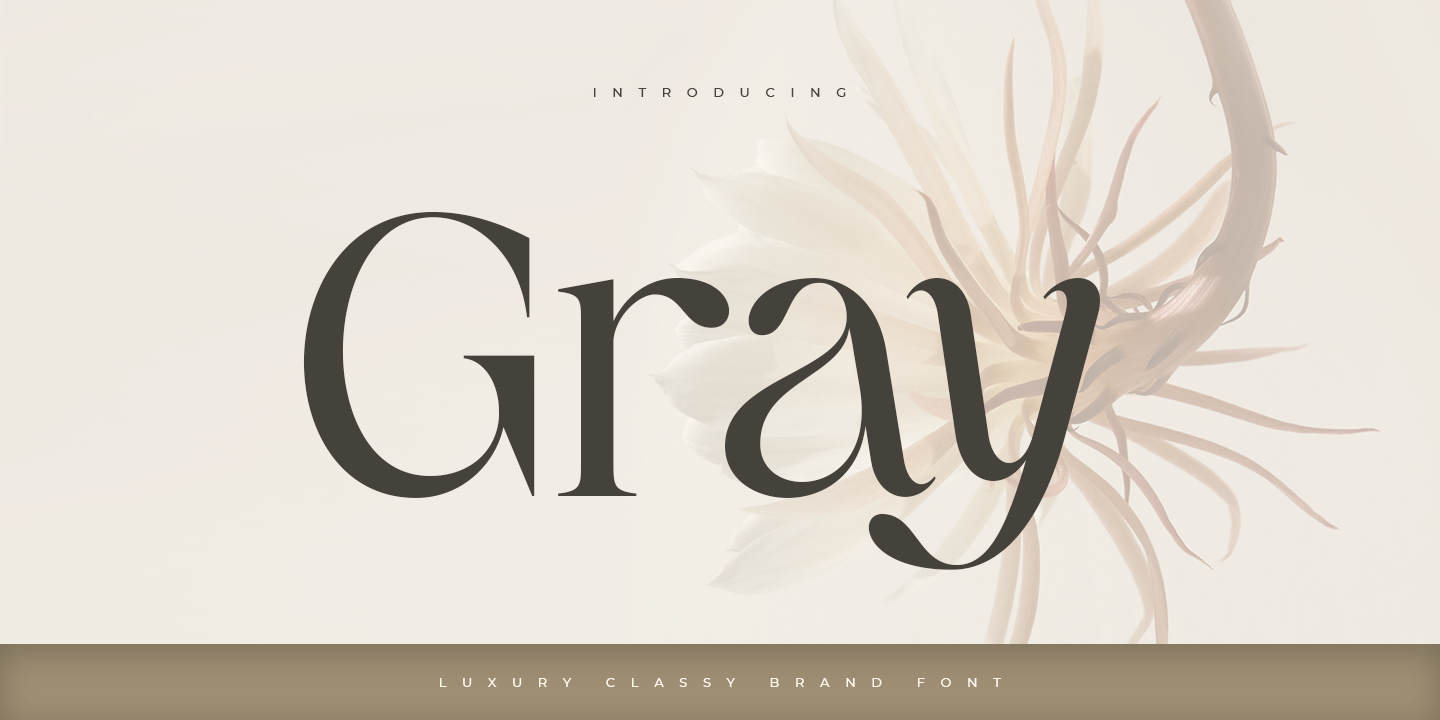
The Gray Font is an excellent choice for designs that demand a clean, modern, and highly versatile aesthetic, often with a subtle, neutral elegance. Imagine it providing crisp, understated text for sophisticated corporate branding, adding a refined and professional feel to high-tech product interfaces, or bringing a minimalist yet impactful vibe to editorial layouts in contemporary magazines. It's also perfectly suited for sleek mobile app design, comprehensive annual reports, and any project where you want to convey innovation, clarity, and timeless design without being overly flashy. With its balanced proportions and meticulously crafted forms, the Gray Font is ideal for projects that aim for visual polish and functional excellence.
What makes the Gray Font truly exciting is its remarkable ability to perform across a vast array of applications while maintaining a consistently high level of readability and aesthetic appeal. It's designed for supreme legibility even at small sizes and on diverse screens, making it a reliable workhorse for both print and digital media. This font strikes an optimal balance between being unobtrusive for body text and having enough character to make headlines pop with modern sophistication. It injects a sense of professionalism and cutting-edge design into your projects, making it a go-to choice for establishing a credible and contemporary brand presence. The Gray Font Free Download offers a fantastic opportunity to experience this typeface's versatile capabilities.
The Gray Font family is typically designed to offer a comprehensive range of weights and styles, maximizing its adaptability for diverse design requirements. While specific family members can vary, you can typically expect to find:
Gray Thin
Gray Light
Gray Regular
Gray Medium
Gray SemiBold
Gray Bold
Gray Black
Gray Italic (or Oblique versions for various weights)
These extensive variations provide designers with ample flexibility to create intricate visual hierarchies, from delicate accents to impactful headlines, ensuring optimal performance across a wide array of applications while maintaining the font's signature clear and contemporary appearance.